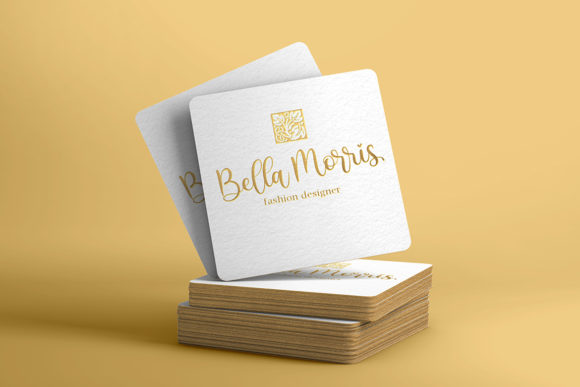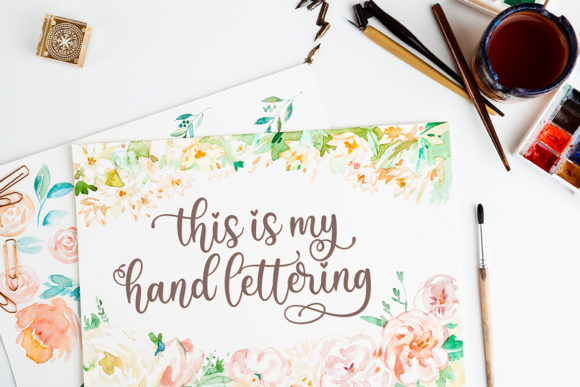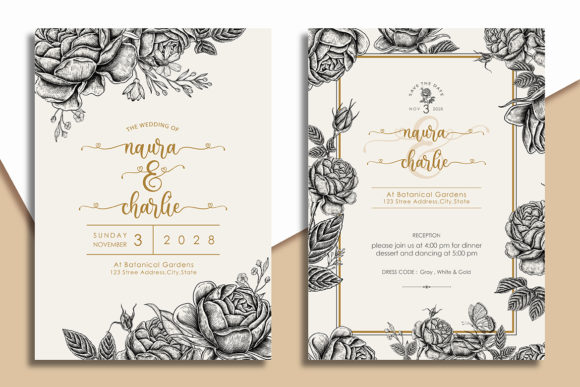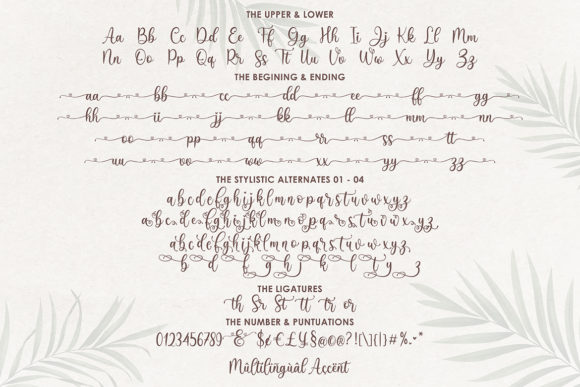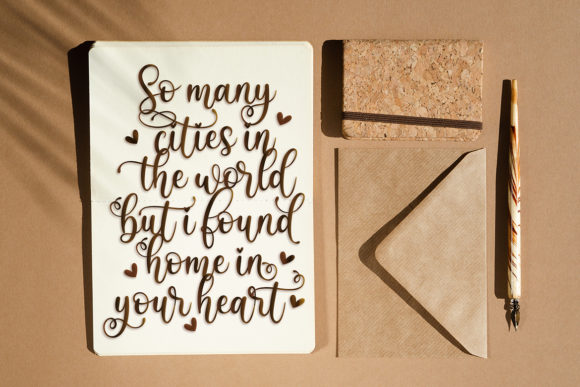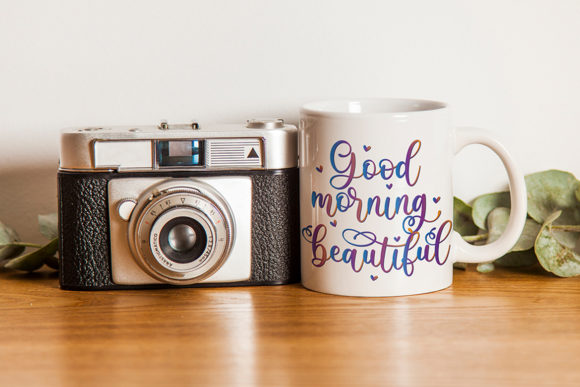
Introduction to Sefilya Font
As a designer, there’s nothing quite like the thrill of creating something beautiful from scratch. It’s the moment when a blank canvas transforms into a vibrant work of art, and your imagination comes alive. For me, that moment happened when I stumbled upon the stunning Sefilya Font – a elegant and flowing handwritten font that has become an essential design resource in my toolkit.
With its PUA encoded features, accessing the numerous glyphs and swashes is a breeze, allowing me to elevate my creative projects to new heights. Whether I’m working on a branding project or a beautiful invitation, Sefilya Font’s smooth lines, gorgeous glyphs, and stunning alternates make it the perfect companion for any design task.
What sets Sefilya Font apart is its unique ability to maintain a classy calligraphic influence while feeling fresh and contemporary – making it a valuable addition to any designer’s arsenal.
Key Features of Sefilya Font
- High-quality design resource for creative projects, offering a unique and stylish aesthetic.
- Features a clean and modern design, making it suitable for a wide range of creative projects.
Honest Review: Sefilya Font
As a designer, I’m always on the lookout for high-quality design resources to elevate my creative projects. The Sefilya Font is a great find, offering a free download that’s perfect for those looking to add a touch of elegance to their work.
What works well: ✨ The Sefilya Font features a beautiful, modern design with a transparent background, making it easy to use on any background without the risk of visual clutter. The font is also highly customizable, allowing designers to adjust the size, color, and style to suit their needs.
What I like about the Sefilya Font is its versatility – it’s suitable for a wide range of creative projects, from logos and branding to digital graphics and printed materials. The font’s clean design makes it easy to read and understand, even in small sizes.
Limitations: ⚠️ While the Sefilya Font is a great resource, it’s not without its limitations. The font’s range of styles is somewhat limited, and it may not be the best choice for projects that require a more dramatic or bold font.
Overall, I’m impressed with the Sefilya Font and would highly recommend it to designers looking for a high-quality, free download. With its transparent background and customizable design, it’s a great addition to any design resource collection.
- Highly customizable design
- Suitable for a wide range of creative projects
Tips for Getting the Most Out of Sefilya Font
To get the most out of Sefilya Font, try using it in combination with other design elements, such as images, shapes, and colors. Experiment with different font sizes, styles, and colors to create a unique and eye-catching design. Additionally, use Sefilya Font’s transparent background to create a subtle texture or effect in your design.
Common Use Cases for Sefilya Font
Sefilya Font is perfect for a variety of creative projects, including logos, business cards, social media graphics, presentations, reports, and business documents. Its high-quality design and transparent background make it ideal for designs that require a professional and sophisticated look.